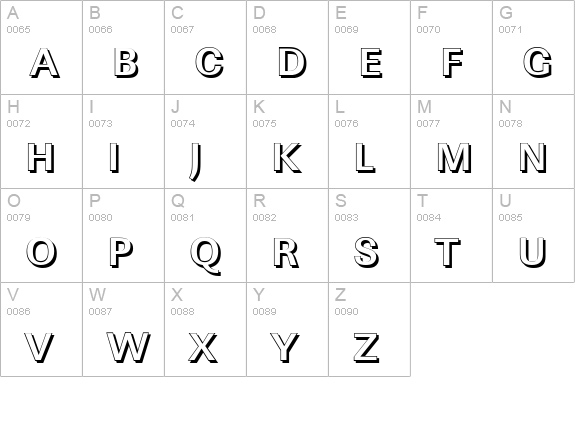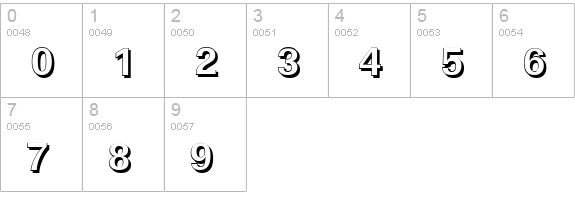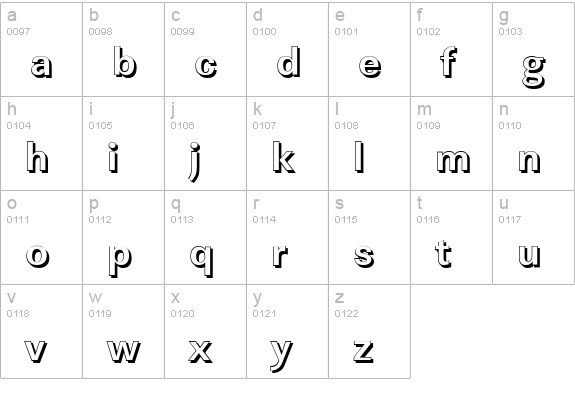
LinearSh-Bold is a strong, high-contrast variant in the LinearSh typeface family \xE2\x80\x94 well suited to headlines, attention-grabbing titles, and strong calls-to-action.
LinearSh-Bold font is a modern and stylish typeface that exudes confidence and professionalism. With its clean lines and bold strokes, this font is perfect for making a statement in your designs. The sleek and versatile design of LinearSh-Bold makes it suitable for a wide range of projects, from branding to headlines to social media graphics. The best part is that LinearSh-Bold is available for free download at FontsMarket.com. This means you can easily add this eye-catching font to your collection without breaking the bank. Whether you're a designer looking to spice up your projects or a business owner wanting to stand out from the competition, LinearSh-Bold is the perfect choice. Download it today and elevate your designs with this striking and modern font.